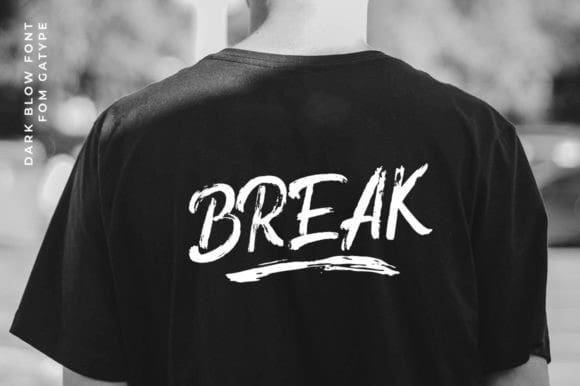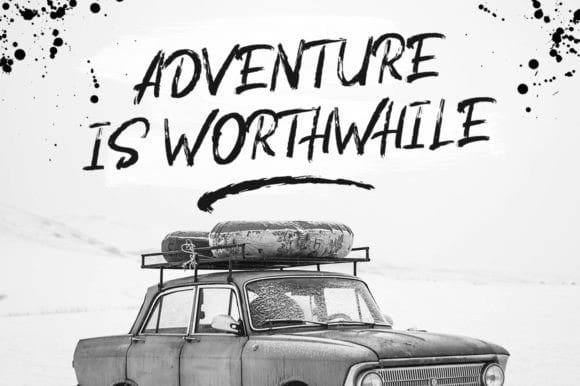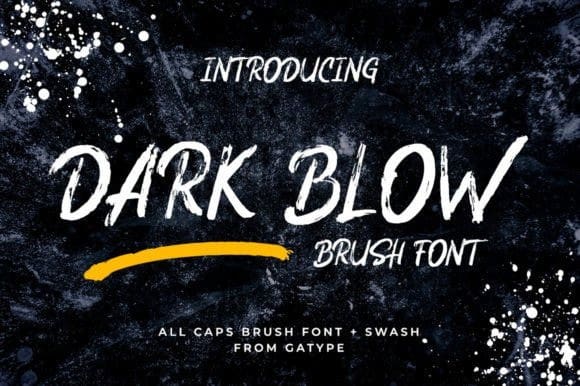
Dark Blow Font
Dark Blow Font is a modern and trendy handwritten brush font. Its urban-inspired look is perfect for creating unique designs with a contemporary look.